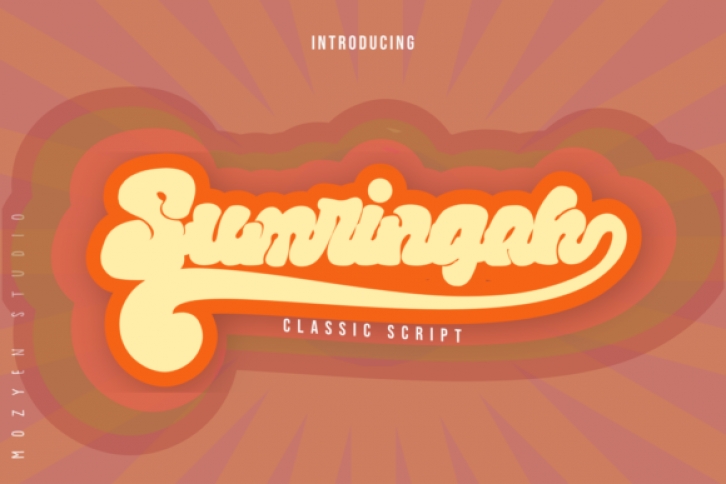
Sumringah is a bold script font, featuring a vintage vibe. It can be used for various purposes such as logos, headings, t-shirts, letterhead, signage, labels, news, posters, badges and so much more.